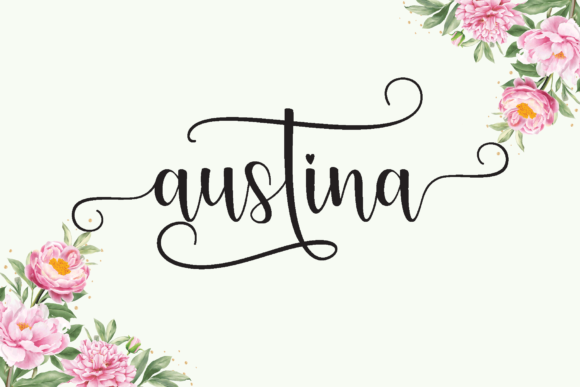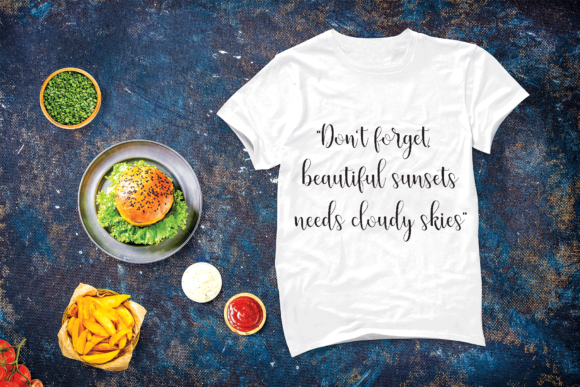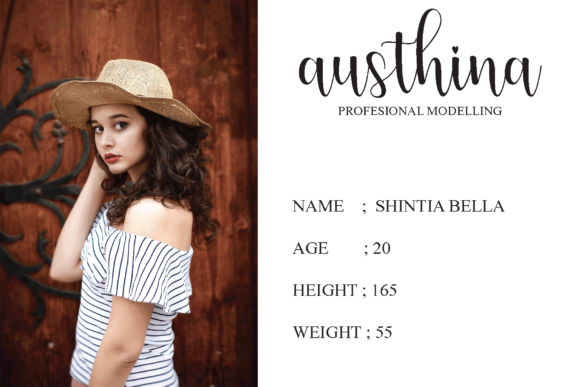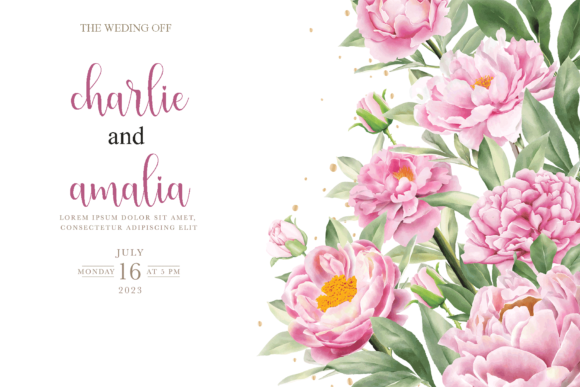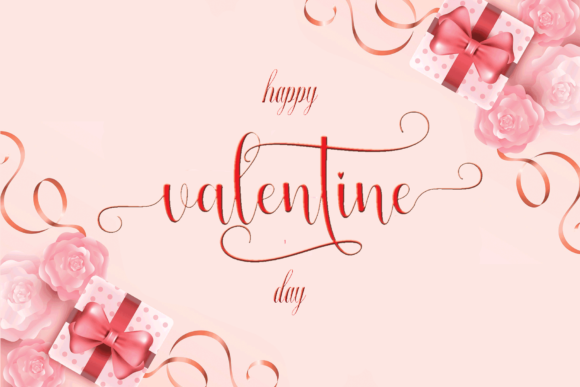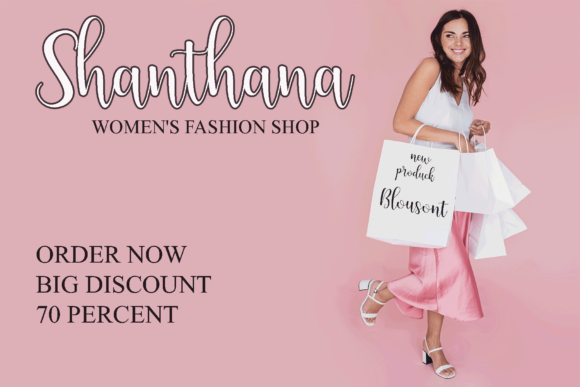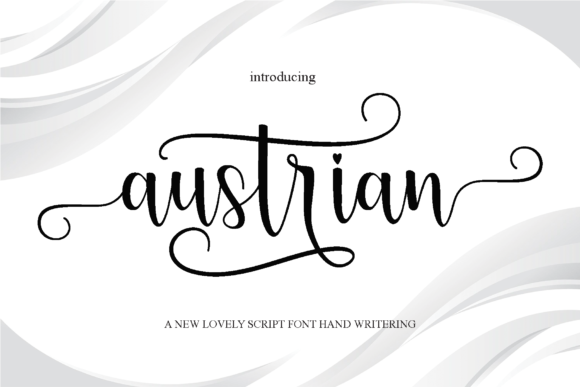
Austrian Font: Elevate Your Design with a Touch of Luxury
In the world of typography, fonts play a crucial role in conveying the tone and aesthetic of a design project. For designers and crafters seeking to add a touch of sophistication and elegance to their work, the Austrian Font is an exceptional choice. This beautiful light handwritten font boasts a unique feel and a stunning impact, making it perfect for a wide range of design applications.
What Makes Austrian Font Special?
The Austrian Font is not just any ordinary font; it’s a masterpiece designed to bring a sense of luxury to your design projects. Here are some of its standout features:
- Unique Handwritten Style: Austrian Font offers a light, airy feel that is both elegant and refined. Its handwritten style adds a personal touch to any design, making it stand out from more conventional fonts.
- Luxury Appeal: The font’s sophisticated look is perfect for projects that require a high-end feel. Whether you’re working on a branding project, packaging, or marketing materials, Austrian Font can help elevate your design to the next level.
- PUA Encoded: One of the most significant advantages of the Austrian Font is that it is PUA (Private Use Area) encoded. This means that you can easily access all the amazing glyphs and ligatures, allowing for greater creativity and flexibility in your designs.
Applications of Austrian Font
The versatility of the Austrian Font makes it suitable for a variety of design projects. Here are some of the ways you can use this stunning font:
- Branding and Logos: Create a lasting impression with a unique and elegant logo that captures the essence of your brand.
- Stationery and Packaging: Add a touch of luxury to your business cards, letterheads, and product packaging.
- Web Design: Use Austrian Font to create visually appealing website headers, titles, and quotes that engage your audience.
- Marketing Materials: Elevate your brochures, flyers, and posters with a sophisticated font that draws attention.
- Crafting and DIY Projects: For crafters and DIY enthusiasts, Austrian Font can add a professional touch to handmade products, such as labels, tags, and cards.
Tips for Using Austrian Font Effectively
To get the most out of the Austrian Font, consider the following tips:
- Pair it with Complementary Fonts: Combine Austrian Font with simpler fonts to create visual contrast and hierarchy in your designs.
- Adjust Font Sizes: Experiment with different font sizes to emphasize certain elements and create a more dynamic layout.
- Play with Colors: While the font itself is elegant, you can further enhance your design by using a thoughtful color scheme that complements the font.
- Utilize Glyphs and Ligatures: Take advantage of the PUA encoding to access and incorporate glyphs and ligatures, adding more personality to your text.
The Austrian Font is a beautiful and versatile typeface that can add a touch of luxury to any design project. Its unique handwritten style, combined with PUA encoding for easy access to glyphs and ligatures, makes it an excellent choice for designers and crafters looking to create stunning and sophisticated designs. Whether you’re working on branding, web design, or crafting, Austrian Font is sure to elevate your work and leave a lasting impression.